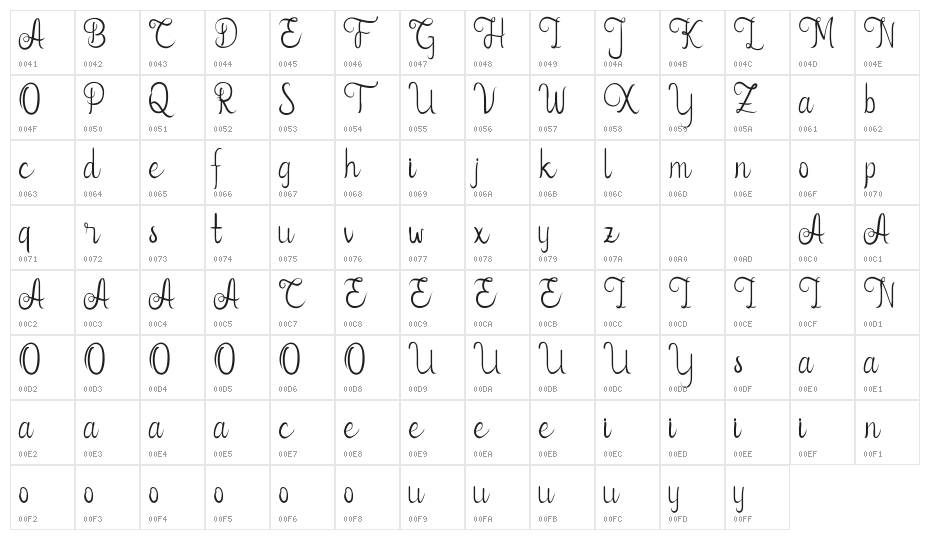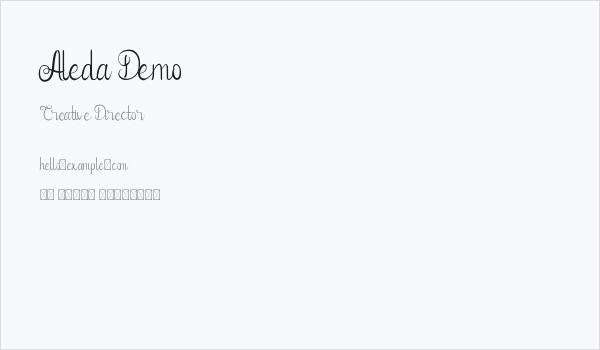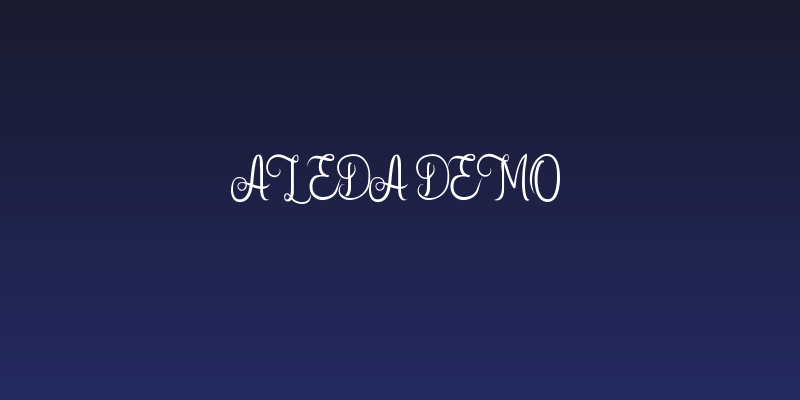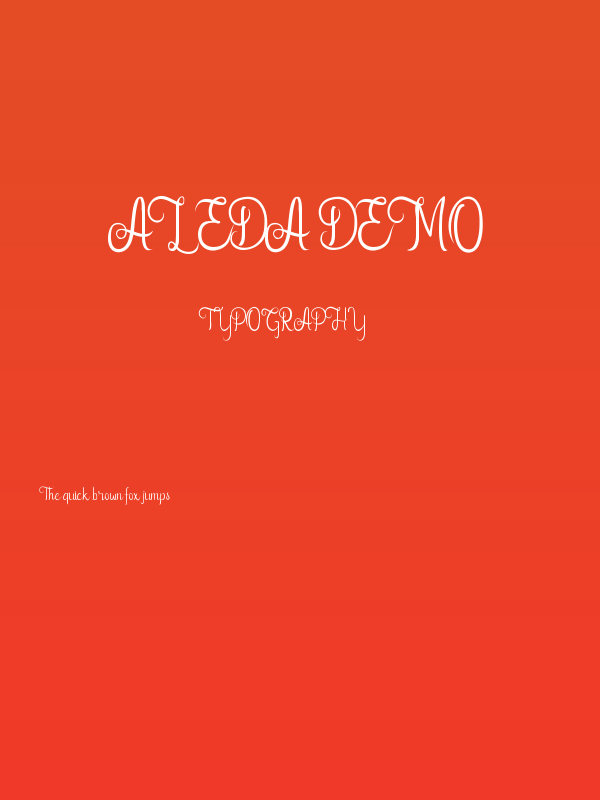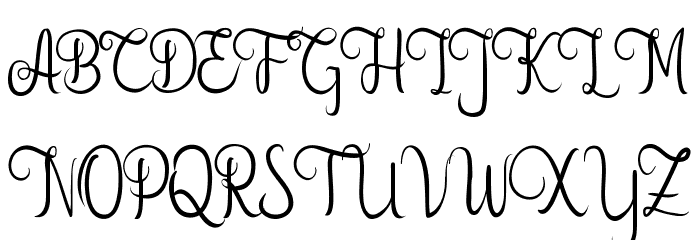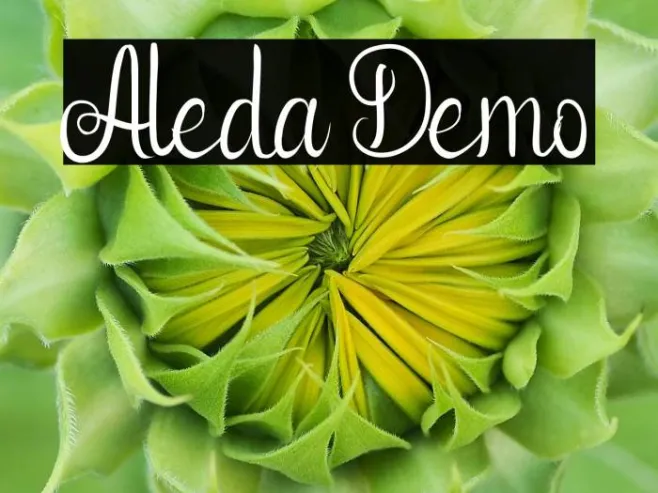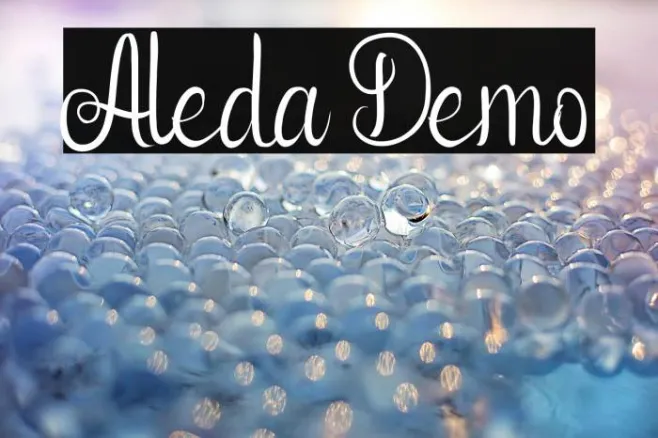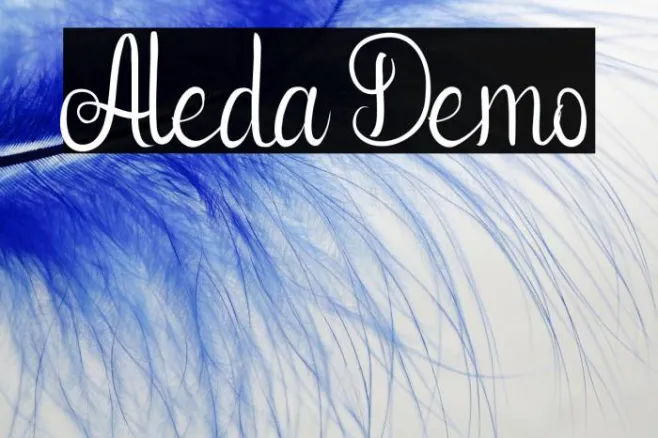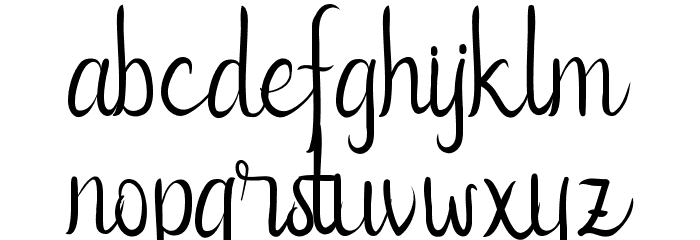
Aleda Demo Font
Aleda Demo Description
This font features a whimsical and elegant script style with a playful yet sophisticated appearance. The letters are characterized by their flowing, interconnected strokes and graceful curves, giving it a handwritten feel. The uppercase letters are ornate, with decorative loops and swirls, while the lowercase letters maintain a consistent, smooth flow. This font has a unique charm, making it suitable for creative and artistic projects. The overall look is both modern and classic, with a touch of vintage flair.